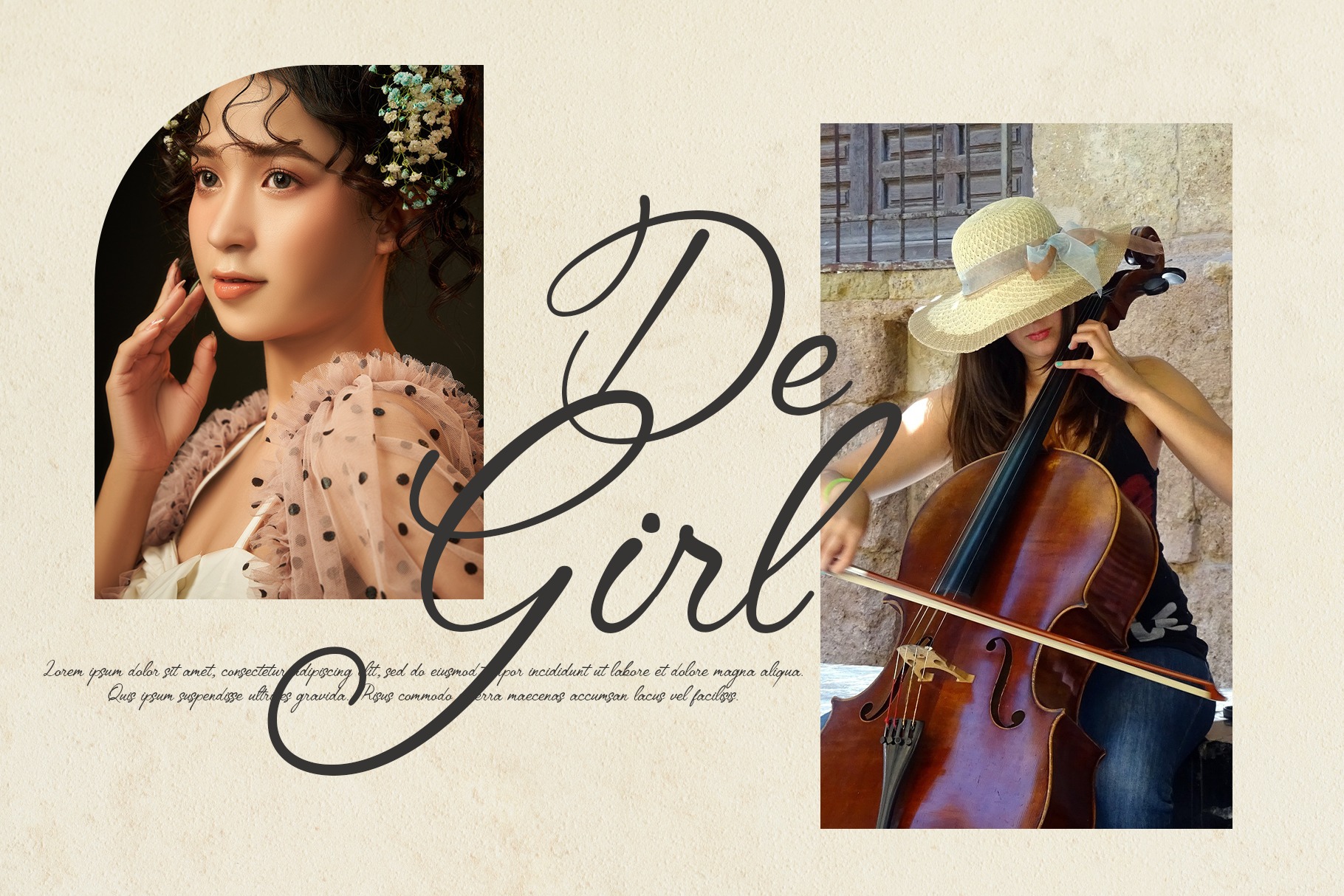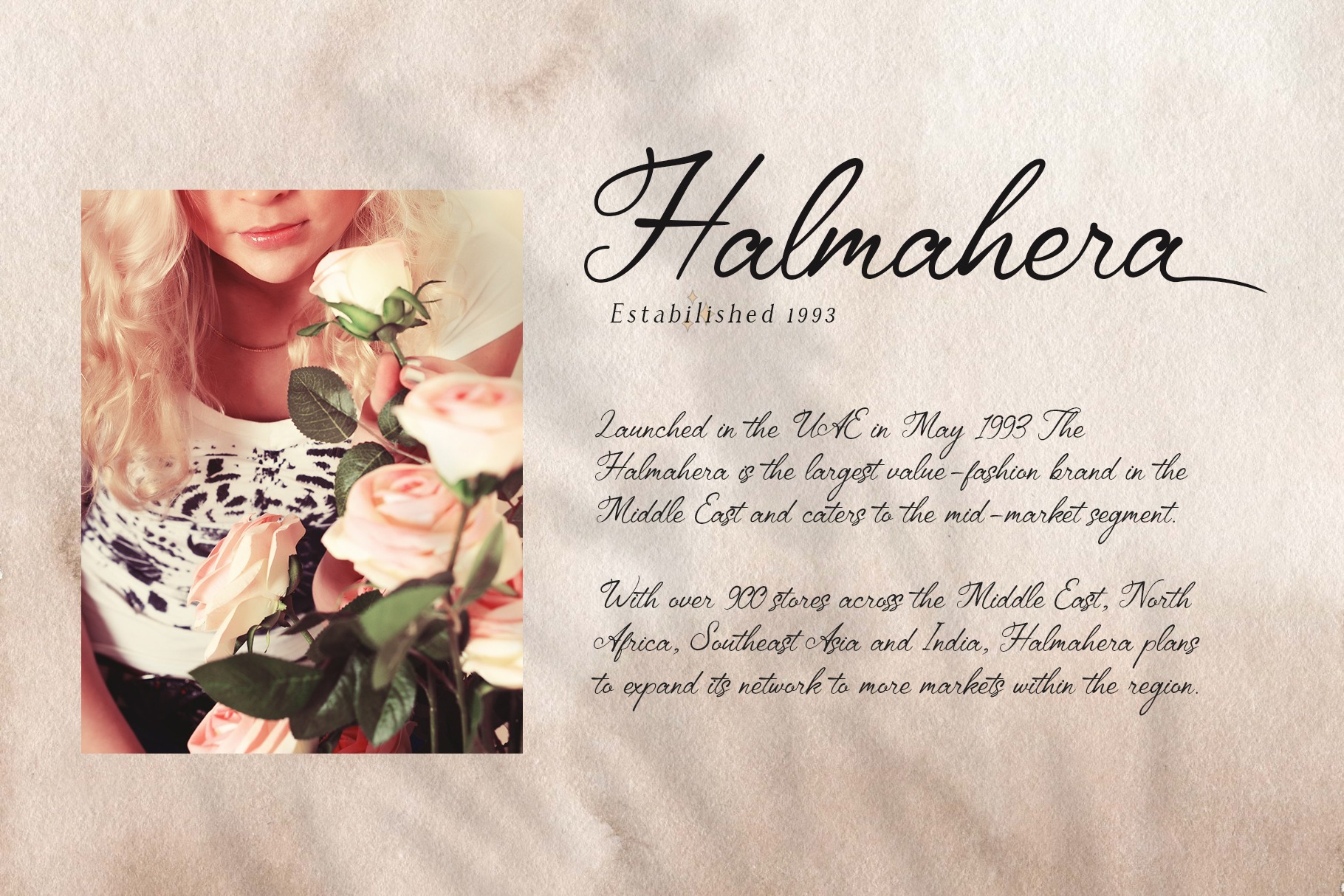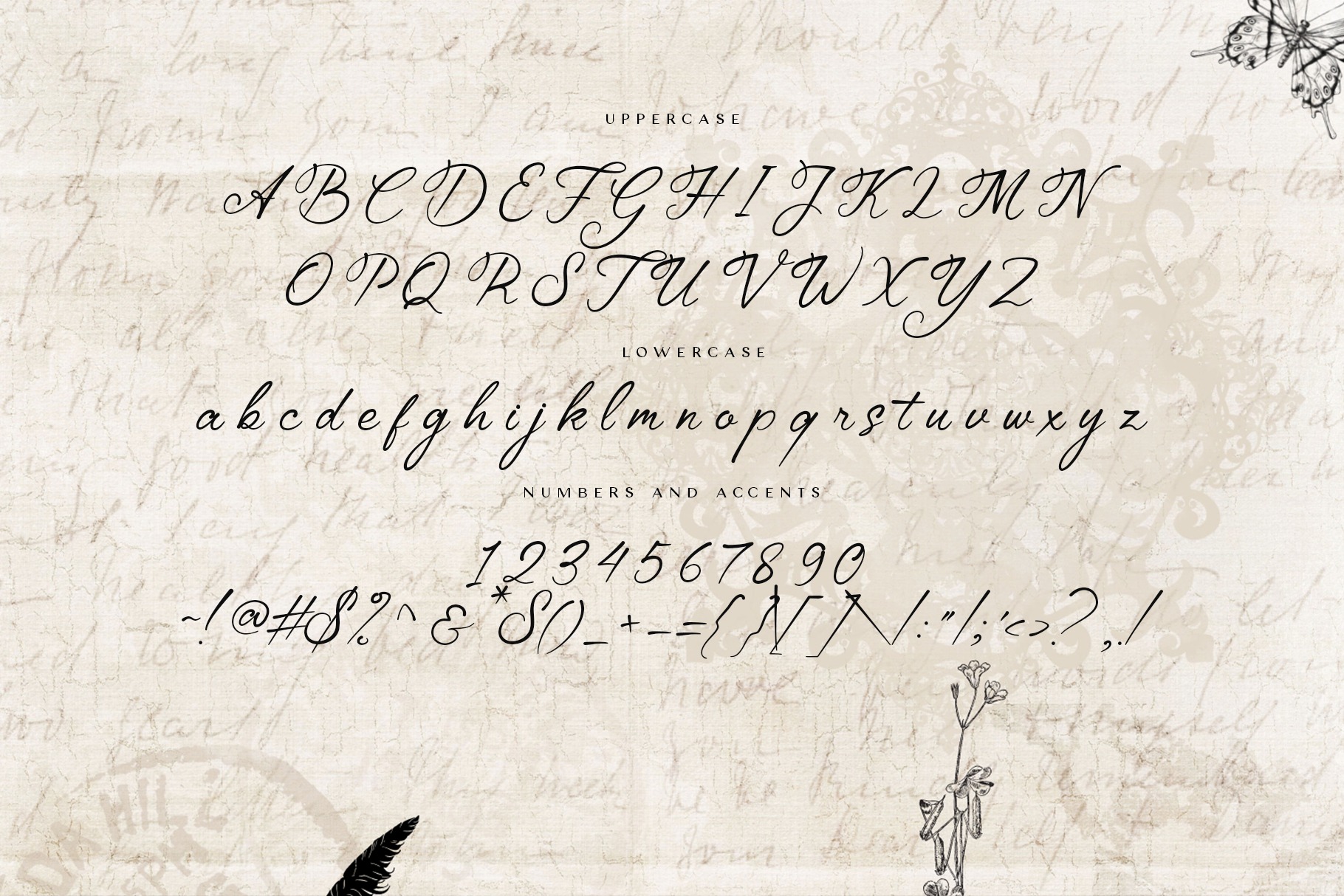
Embrace the beauty of nature in your designs with Amantta Organic Handwritten Font. This delightful typeface features soft, flowing lines that capture the essence of organic handwriting, adding a warm and inviting touch to your projects. Perfect for everything from rustic branding and eco-friendly products to heartfelt invitations and social media posts, Amantta infuses your text with personality and charm. Let your creativity flourish with this versatile font that beautifully balances elegance and authenticity. Download Amantta today and give your designs a unique, organic feel!